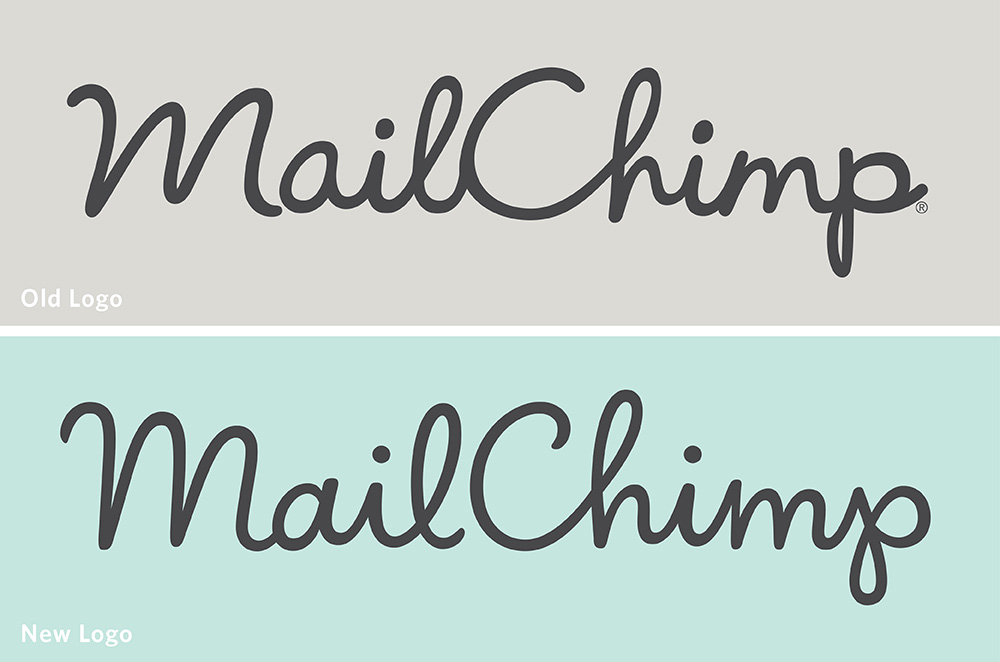
Mailchimp got a recent facelift
The familiar to all the design community e-mail service, has decided to reconsider its logo and its rightly adressed to Jessica Hische. With small intervention on its lettering, but with quite an appreciable result, the new logo seems to enjoy more space, there is better coherence between letters which gives greater legibility in small sizes, while it seems to lost some weight. The end result is something new and fresh, more refined but just as playful. Worth saying that the way Mrs. Hische has showcased the study seems like a small lesson on lettering, so you better check.